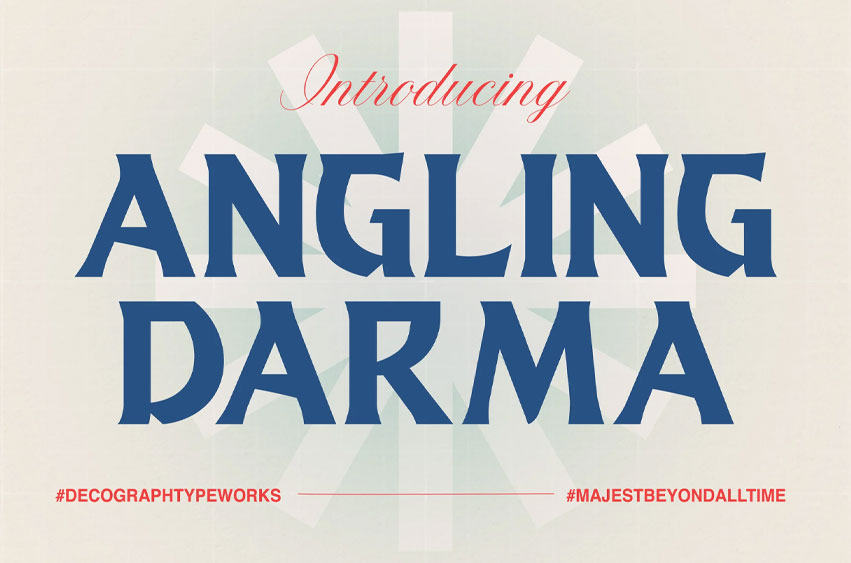
Angling Darma Font
Angling Darma Font When noble elegance meets timeless tradition — we introduce ANGLING DARMA. A bold heritage-inspired display font, crafted with sharp yet graceful letterforms that radiate dignity, balance, and cultural pride. Inspired by epic tales and classical aesthetics, this font carries a sense of majesty that elevates any design.
Perfect for posters, logos, editorial headlines, branding projects, book covers, and event titles, Angling Darma blends traditional character with modern usability, making it a versatile choice for both print and digital works.